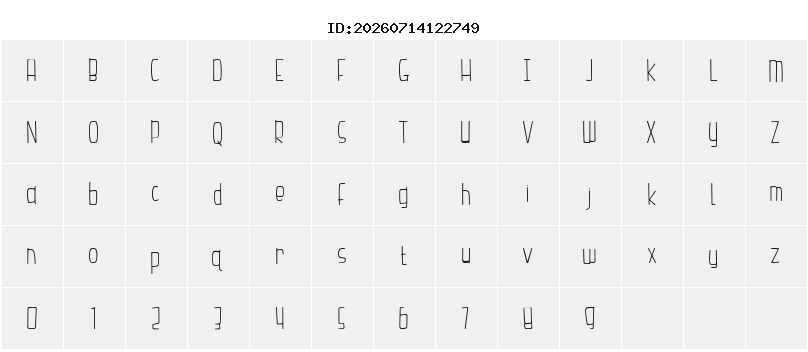
• Font Name: Hazelnut Water
• Designer: Brittney Murphy
About Hazelnut Water.ttf
Hazelnut Water.ttf is a modern, elegant sans-serif font designed for ultimate readability and visual harmony. Perfect for branding, headlines, web design, and print materials.